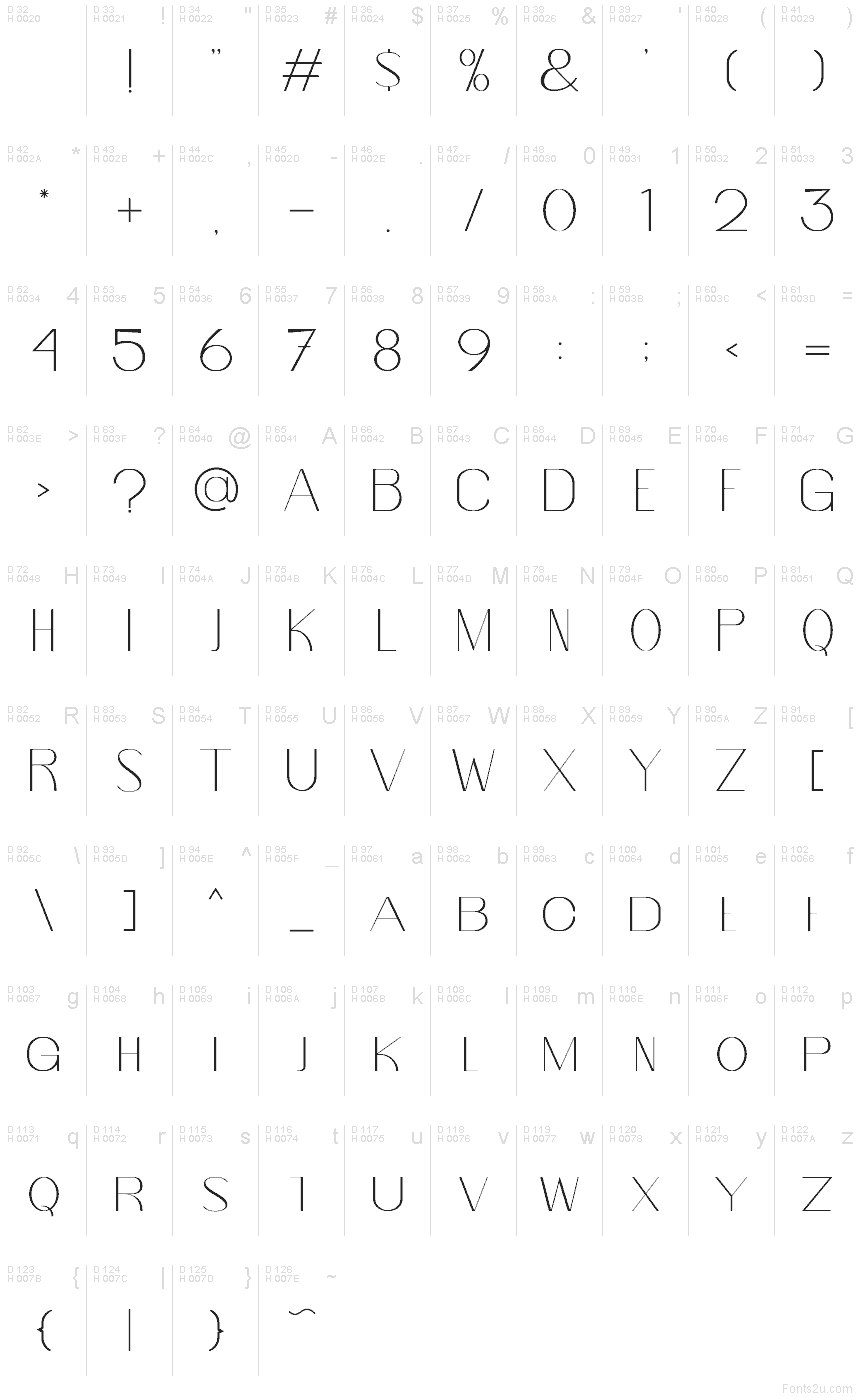
De Rolande
De Rolande font by PutraCetol Studio is a free light sans serif font with both a modernist feel and geometric influences. Its design is elegant, minimalist, and sophisticated which carves an impressive statement for each of your projects that uses it.
Presentations, shop signs, business cards, magazines, envelopes or letters are among the many uses that suit this font well. Others include uniforms, notebooks and posters for exhibitions or public events that require immediate attention from crowds.